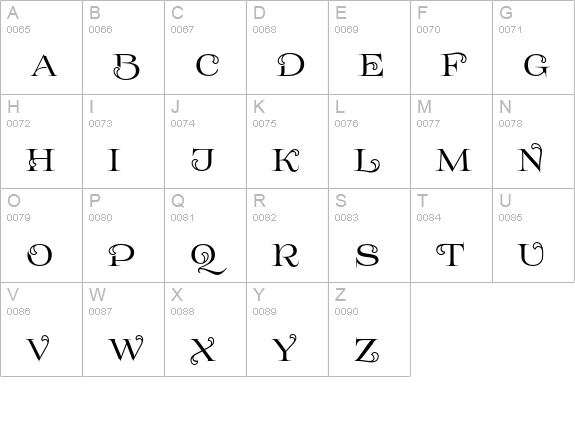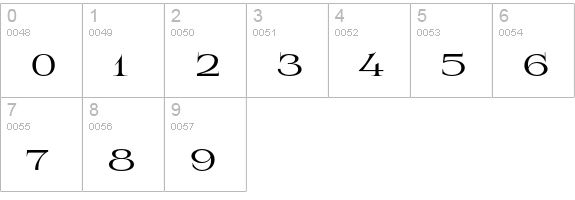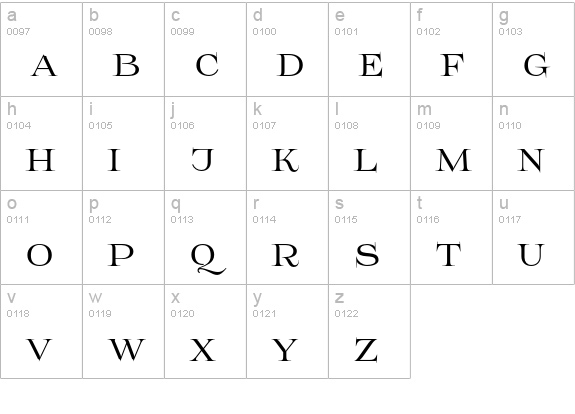
Prida61 Font Details
Prida61 font is a stunning typeface that effortlessly combines elegance with a touch of modernity. With its clean lines and graceful curves, this font adds a sophisticated touch to any design project. Whether you're working on a branding project, creating stunning headlines, or designing eye-catching invitations, Prida61 font is sure to impress. What sets Prida61 font apart is not only its impeccable design but also the fact that it is available for free download at FontsMarket.com. Yes, you read it right - this extraordinary font can be yours without spending a dime. It's a rare opportunity to get your hands on a high-quality font that is both visually pleasing and freely accessible. Prida61 font offers a wide range of characters, including uppercase and lowercase letters, numerals, punctuation marks, and special symbols. Its versatility allows you to experiment with different styles and create unique compositions that truly stand out. Whether you're aiming for a classic, timeless look or a contemporary, cutting-edge design, Prida61 font has got you covered. The clean and crisp nature of Prida61 font ensures optimal legibility, making it suitable for a variety of applications. From web design to print materials, this font adapts seamlessly across different mediums. Its clarity ensures that your message is conveyed effectively and effortlessly. So why wait? Enhance your design projects with the timeless beauty of Prida61 font. Download it for free at FontsMarket.com and experience the endless possibilities it offers. Let your creativity shine with this remarkable font that combines elegance, modernity, and accessibility.